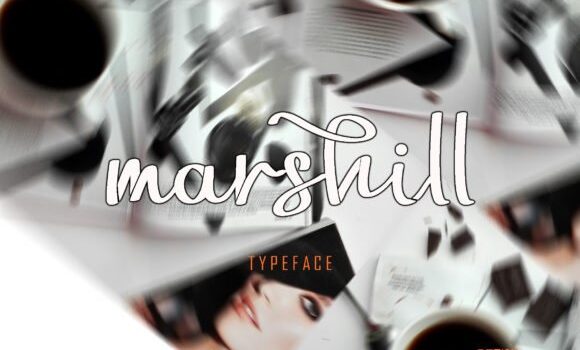
marshill
Marshill Font - Featured Image
Marshill Font – Free Download Introduction to Marshill Font Marshill is an elegant and flowing handwritten font. 📸 Preview Gallery 6 images 📌 Product Name Marshill Font 👤 Author erlosDESIGN 📂 Category Explore ⬇️ Download Marshill Font FREE Free Download